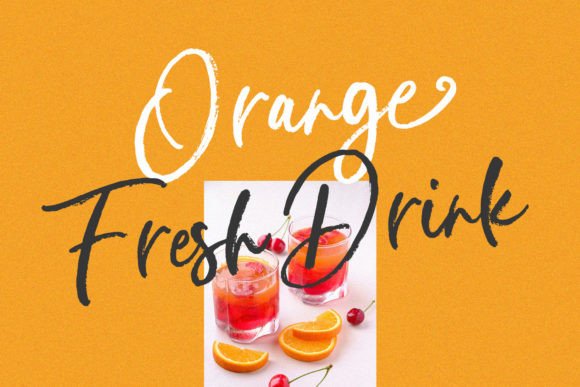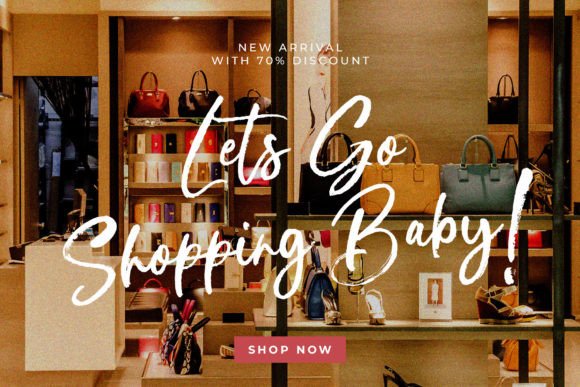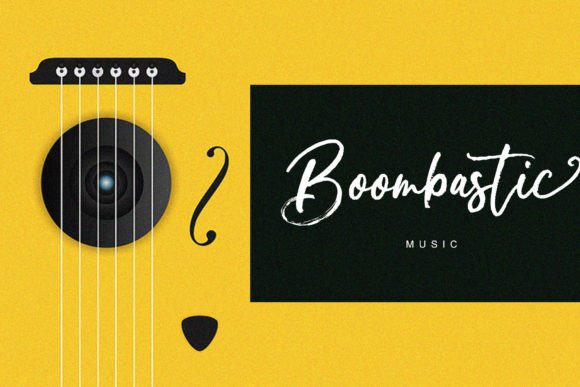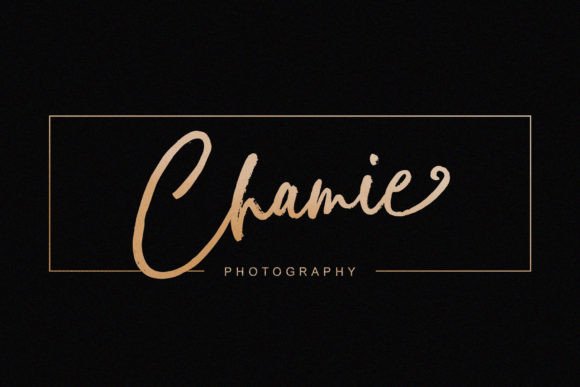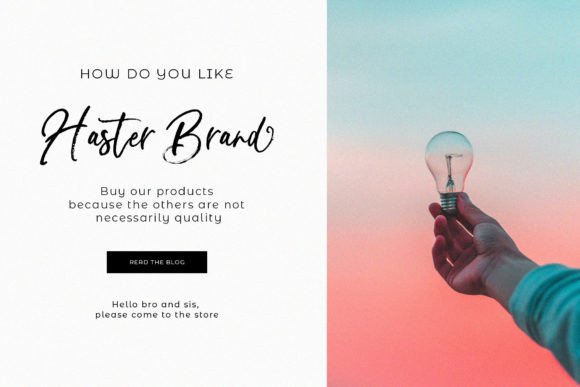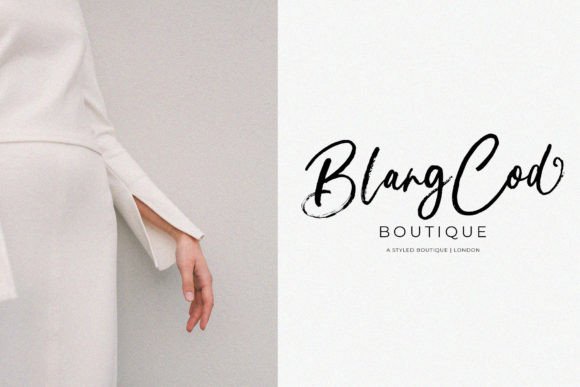
Introducing Blang Cod Font: A Handwritten Script Font with a Personal Touch
Are you tired of using the same old fonts for your design projects? Do you want to add a personal touch to your branding, packaging, or marketing materials? Look no further than Blang Cod Font, a beautiful handwritten script font that’s perfect for designers and crafters alike.
What is Blang Cod Font?
Blang Cod Font is a handwritten script font that’s based on free-flowing, friendly, and organic signature style expressions. This font is hand-painted with love, giving it a unique and personal touch that’s sure to make your designs stand out. With its smooth and flowing lines, Blang Cod Font is perfect for creating a wide range of designs, from logos and branding materials to product packaging, posters, and more.
Features of Blang Cod Font
So, what makes Blang Cod Font so special? Here are just a few of its key features:
• Handwritten script font: Blang Cod Font is a true handwritten script font, giving it a personal and organic feel that’s hard to replicate with digital fonts.
• Alternative ligatures and characters: This font comes with alternative ligatures and characters, which can be accessed through the Open Type Feature. This means you can customize your text to create a truly unique look.
• Unicode PUA coding: Blang Cod Font is coded with Unicode PUA, which allows full access to all additional characters without special design software. This makes it easy to use and customize, even for those without extensive design experience.
Uses for Blang Cod Font
So, what can you use Blang Cod Font for? The possibilities are endless! Here are a few ideas to get you started:
• Branding projects: Use Blang Cod Font to create a unique and memorable brand identity that’s sure to stand out.
• Logos: This font is perfect for creating custom logos that are both personal and professional.
• Product packaging: Add a personal touch to your product packaging with Blang Cod Font, which is sure to make your products stand out on store shelves.
• Posters and invitations: Use this font to create eye-catching posters and invitations that are sure to grab attention.
• Greeting cards and blogs: Blang Cod Font is also perfect for creating personal greeting cards and blogs that showcase your personality and style.
Why Choose Blang Cod Font?
So, why should you choose Blang Cod Font for your next design project? Here are just a few reasons:
• Unique and personal: This font is truly one-of-a-kind, giving your designs a unique and personal touch that’s sure to stand out.
• Easy to use: With its Unicode PUA coding and compatibility with both Mac and Windows, Blang Cod Font is easy to use and customize, even for those without extensive design experience.
• Versatile: This font can be used for a wide range of design projects, from branding and logos to product packaging and posters.
• High-quality: Blang Cod Font is a high-quality font that’s been carefully crafted to ensure that it looks great in any design.
If you’re looking for a unique and personal font for your next design project, look no further than Blang Cod Font. With its handwritten script style, alternative ligatures and characters, and Unicode PUA coding, this font is perfect for designers and crafters alike. Whether you’re creating branding materials, logos, product packaging, or posters, Blang Cod Font is sure to add a personal touch that’s sure to make your designs stand out.